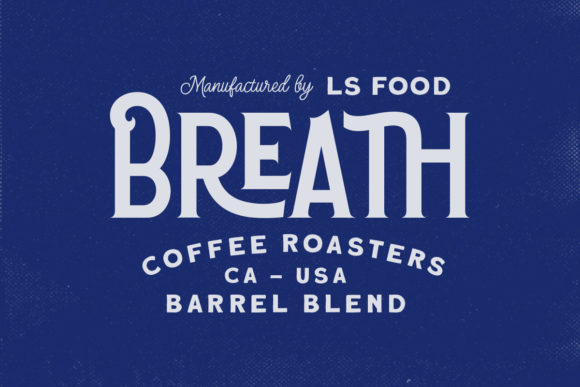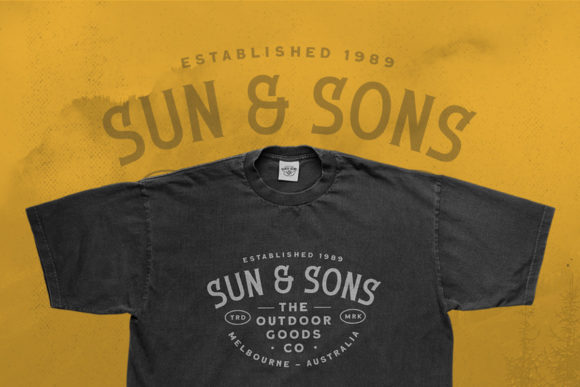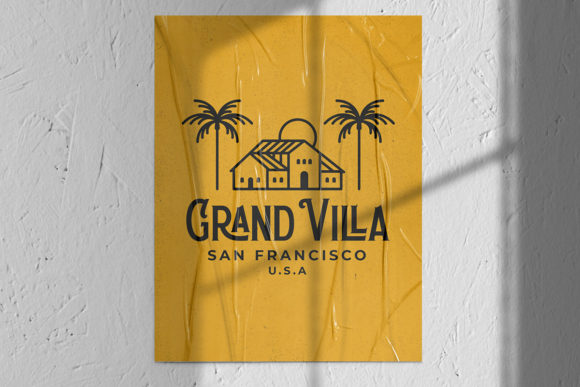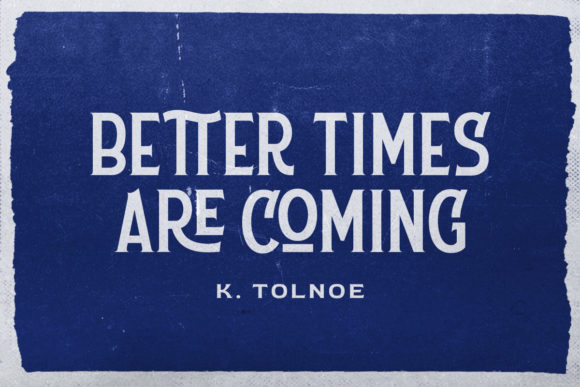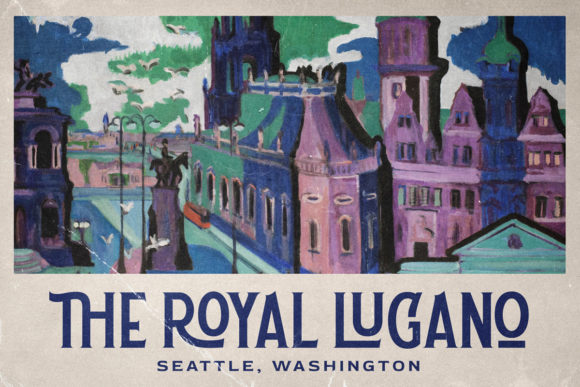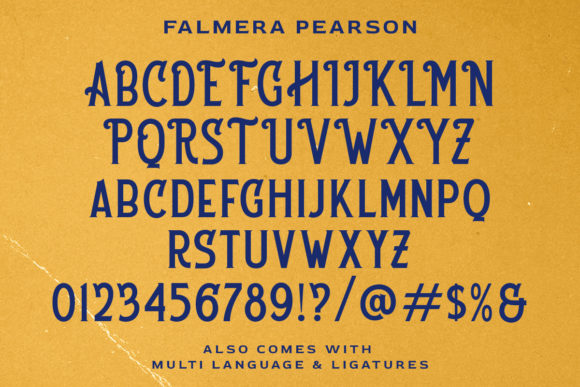
Introducing Falmera Pearson Font: Elevate Your Designs with Vintage Elegance
In the world of typography, fonts play a pivotal role in conveying messages, evoking emotions, and creating lasting impressions. For designers, crafters, and anyone looking to add a touch of sophistication to their projects, the Falmera Pearson Font is a game-changer. This clean, tall, and assertive serif font is not just a typeface; it’s an experience. With its vintage vibes and versatile nature, Falmera Pearson is perfect for a wide range of applications, from product packaging and branding projects to magazine covers, social media content, and wedding designs.
The Essence of Falmera Pearson Font
Falmera Pearson Font stands out with its unique blend of modern cleanliness and vintage charm. Its tall stature and assertive serifs make it a compelling choice for designers looking to make a statement. The font’s clean lines ensure readability, while its vintage undertones add a layer of sophistication and elegance. Whether you’re working on a luxury brand’s packaging or a wedding invitation, Falmera Pearson can elevate your design to new heights.
One of the key strengths of the Falmera Pearson Font is its versatility. It’s a font that can seamlessly transition across various mediums and projects. Here are some of the areas where Falmera Pearson truly shines:
- Product Packaging: In a market flooded with products, standing out on the shelves is crucial. Falmera Pearson’s unique vintage appeal can give your product packaging a distinctive look, making it more noticeable and memorable.
- Branding Projects: For brands looking to establish a strong identity, this font offers a perfect blend of professionalism and character. It’s assertive yet elegant, making it suitable for a wide range of brand personalities.
- Magazine Covers: Grab the attention of readers with a striking magazine cover. Falmera Pearson’s tall and assertive serifs make it perfect for headlines, giving your magazine a professional and captivating look.
- Social Media: In the digital age, social media is a powerful tool for engagement. Use Falmera Pearson to create eye-catching posts, stories, and banners that stand out in crowded feeds.
- Wedding Designs: For wedding invitations, decorations, or any wedding-related design, Falmera Pearson adds a touch of elegance and romance. Its vintage vibes complement traditional wedding themes while also suiting modern minimalist designs.
Why Choose Falmera Pearson Font?
Choosing a font for your project can be overwhelming, given the numerous options available. However, Falmera Pearson Font offers several advantages that make it a preferred choice among designers:
- Unique Vintage Appeal: In a sea of modern and minimalist fonts, Falmera Pearson’s vintage charm is a breath of fresh air. It adds character and personality to your designs.
- High Readability: Despite its decorative serifs, the font maintains high readability, making it suitable for both headings and body text.
- Versatility: Its adaptability across various projects and mediums makes it a valuable addition to any designer’s toolkit.
Falmera Pearson Font is more than just a typeface; it’s a design statement. Its unique blend of vintage elegance and modern cleanliness, combined with its versatility and readability, makes it an invaluable resource for designers and crafters. Whether you’re aiming to create a lasting impression with a brand, capture the essence of a special moment, or simply add a touch of sophistication to your project, Falmera Pearson is up to the task. Embrace the world of vintage elegance with Falmera Pearson Font and watch your designs transform into memorable experiences.